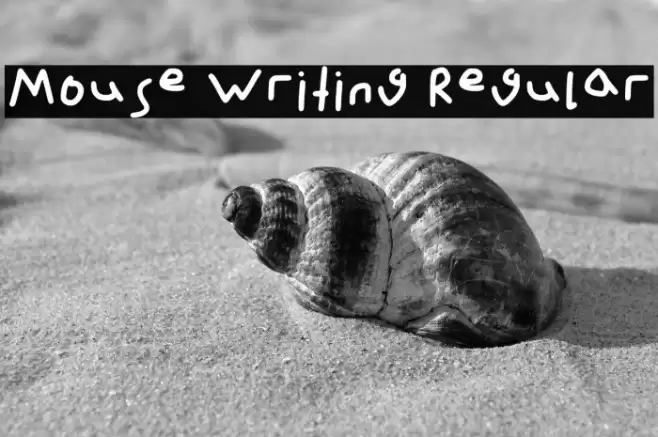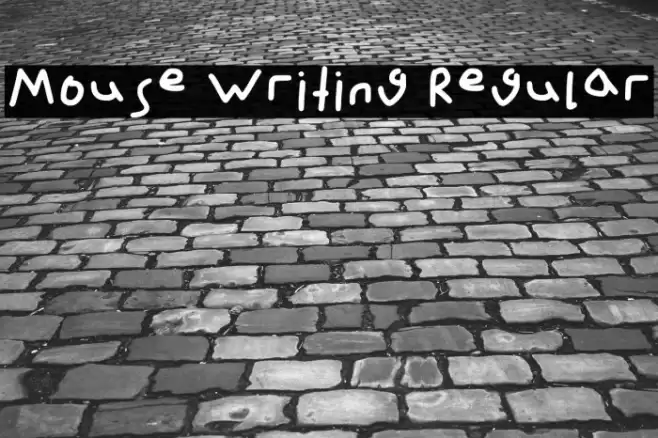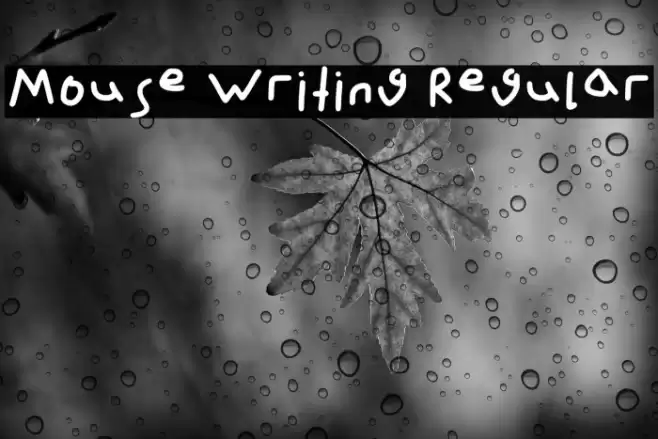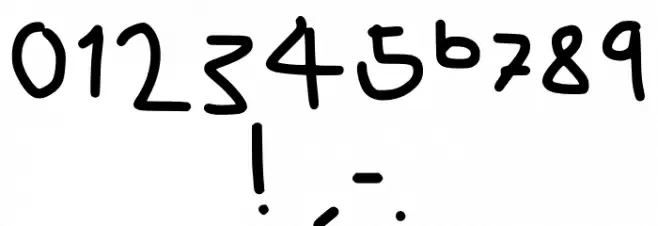
Mouse Writing Regular Font
Mouse Writing Regular Description
This playful and informal font mimics the appearance of handwriting with a casual, relaxed style. The characters are rounded and slightly uneven, giving it a friendly and approachable feel. The strokes are consistent in thickness, contributing to a cohesive look across all characters. This font includes both uppercase and lowercase letters, numbers, and a selection of special characters. Its handwritten style makes it ideal for projects that require a personal touch or a creative flair.
A playful, handwritten-style font with rounded, informal characters from Regular fonts.
- Proposed Projects: Ideal for greeting cards, children's books, casual invitations, and personal blogs.
- Overall Style: Casual
- Use Case: Headlines, Informal text, Creative projects